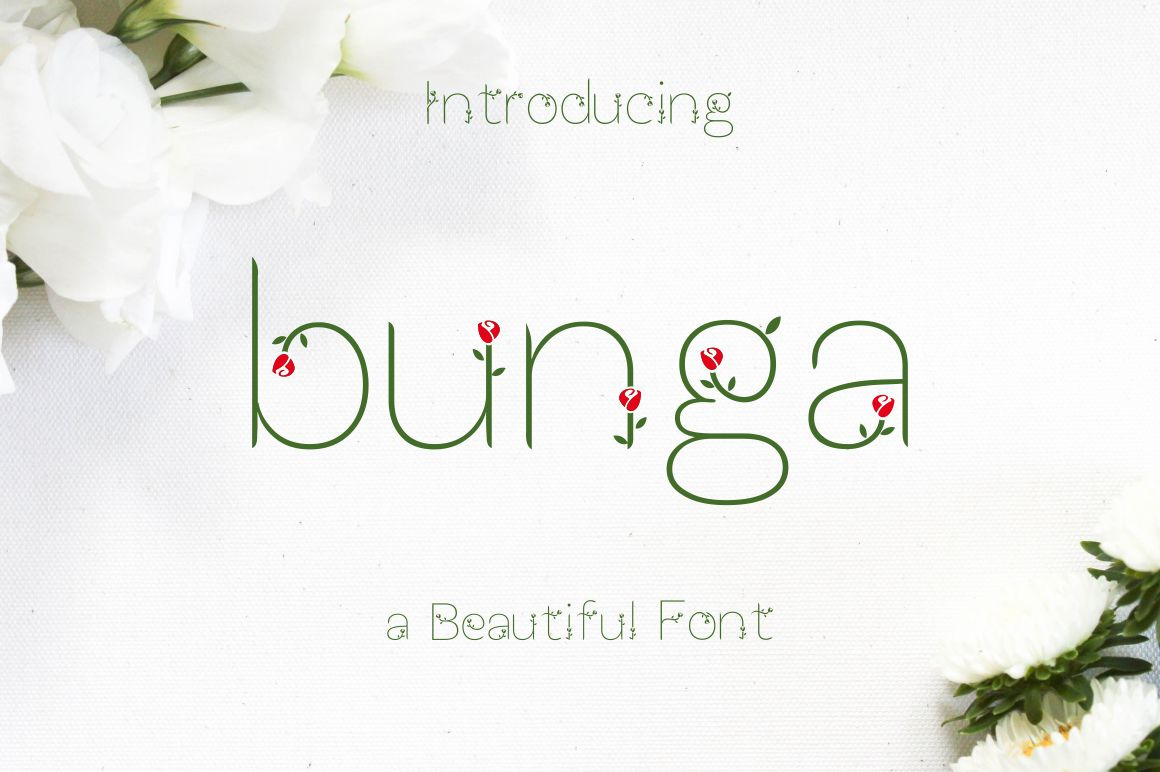
Bunga font
Bunga Decorative in Uppercase and lowercase letters so you'll be able to make your messages super-unique, logo, card, invitation or other related business, include otf and ttf file.